Choosing the right chic fonts beauty brand strategy can instantly elevate your visual identity. In the beauty industry, typography is more than just letters; it reflects elegance, trust, luxury, and emotional appeal. Whether you are building a skincare line, a makeup label, a perfume brand, or a salon identity, the font you choose plays a critical role in how customers perceive your brand.
A chic beauty brand should feel refined, modern, and confident. In this guide, we explore five of the most effective font styles that help beauty brands stand out while maintaining sophistication.
Why Typography Matters for Beauty Branding
Beauty products are closely tied to personal identity and self-expression. Customers look for brands that feel premium, safe, and aesthetically pleasing.
Chic fonts for beauty brand design should:
- Communicate elegance
- Maintain readability
- Reflect brand positioning
- Support both packaging and digital design
1. Chrastle
Introducing Chrastle, an elegant serif font that effortlessly injects style and boldness into your designs. Whether you’re creating beauty branding, social media content, or stunning posters, Chrastle brings a refined yet modern touch to any creative project.
2. Junger
Junger is a modern sans-serif font that blends elegance with chic modernity. Ideal for branding, websites, and social media, it adds sophistication and style to any project.
3. Candy Psyche
Candy Psyche is a sophisticated serif font that adds elegance and style to websites, branding, and social media designs. Perfect for creating timeless, refined projects.
4. Gujenso
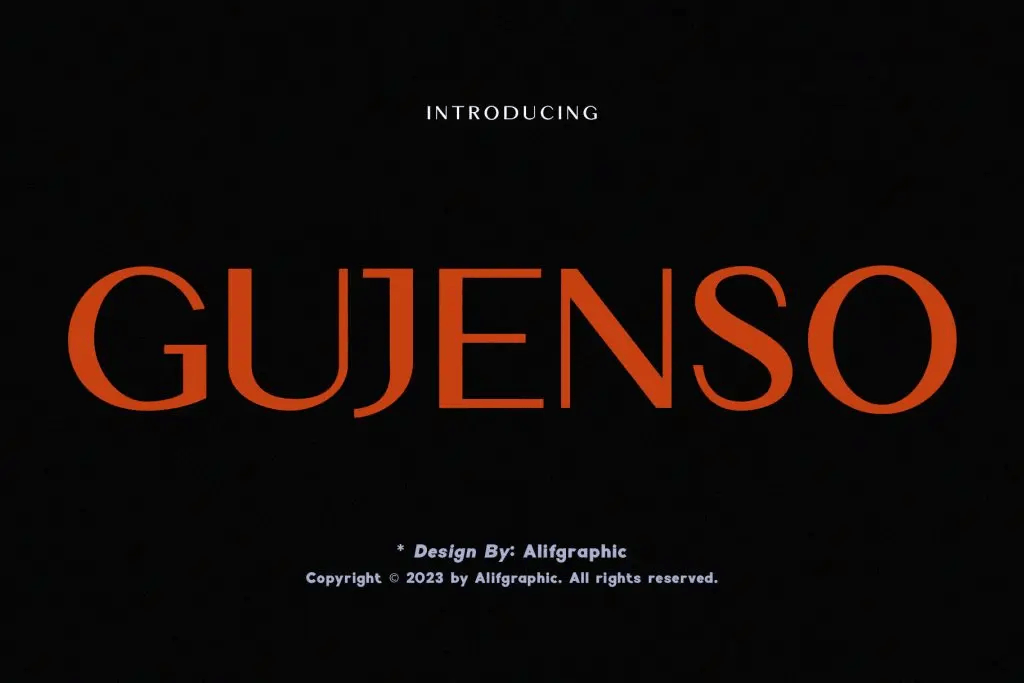
Presenting the all-new Gujenso Modern Sans-Serif, a font that effortlessly combines class with modernity. Gujenso is a sophisticated and elegant sans-serif font, perfectly suited for websites, logos, magazines, and social media.
5. Elegant Serif Fonts for Beauty Brand Identity
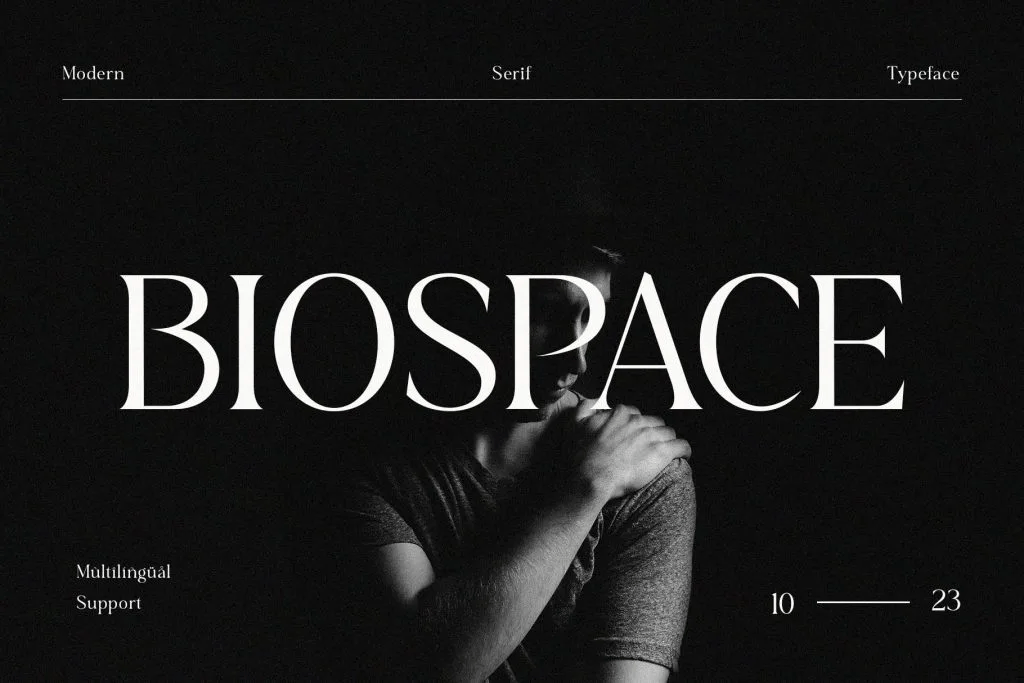
Biospace is a modern serif typeface that combines sleek, contemporary design with elegance, ideal for luxury, beauty, and social media projects.
How to Choose the Right Chic Fonts Beauty Brand Strategy
Selecting chic fonts for beauty brand design requires strategic thinking.
Align With Brand Personality
Ask yourself:
- Is your brand luxury or affordable?
- Is it modern or classic?
- Is it feminine, neutral, or bold?
Font style should match the brand tone.
Consider Packaging and Digital Use
Your chosen font must look good on:
- Product labels
- Website headers
- Social media graphics
- Advertisements
Always test across formats.
Focus on Readability
Even the most elegant font must remain legible. Avoid overly decorative scripts or extremely thin weights without proper spacing.
Final Thoughts on Chic Fonts Beauty Brand Design
Choosing the right chic fonts and beauty brand approach is essential for building an elegant and memorable identity. Typography influences how customers perceive quality, trust, and aesthetic appeal.
Whether you choose elegant serif fonts, modern sans-serif styles, graceful script typography, minimalist thin fonts, or bold display designs, the key is balance and alignment with the brand personality.
A thoughtfully selected font does more than decorate packaging; it strengthens brand recognition and builds emotional connection.